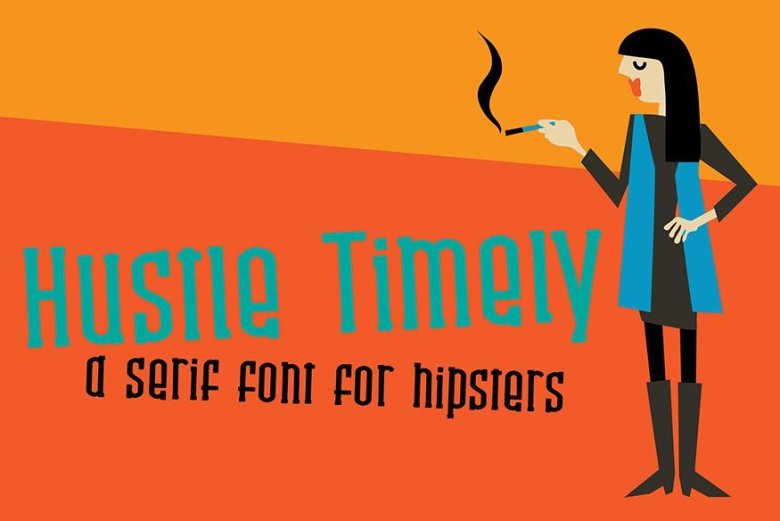
Hustle Timely Font
This serif font is a modern, hip font that can be used for titles, posters, headings as well as journaling and letter writing. Check out her sister sans serif font: ZP Hustle Time.